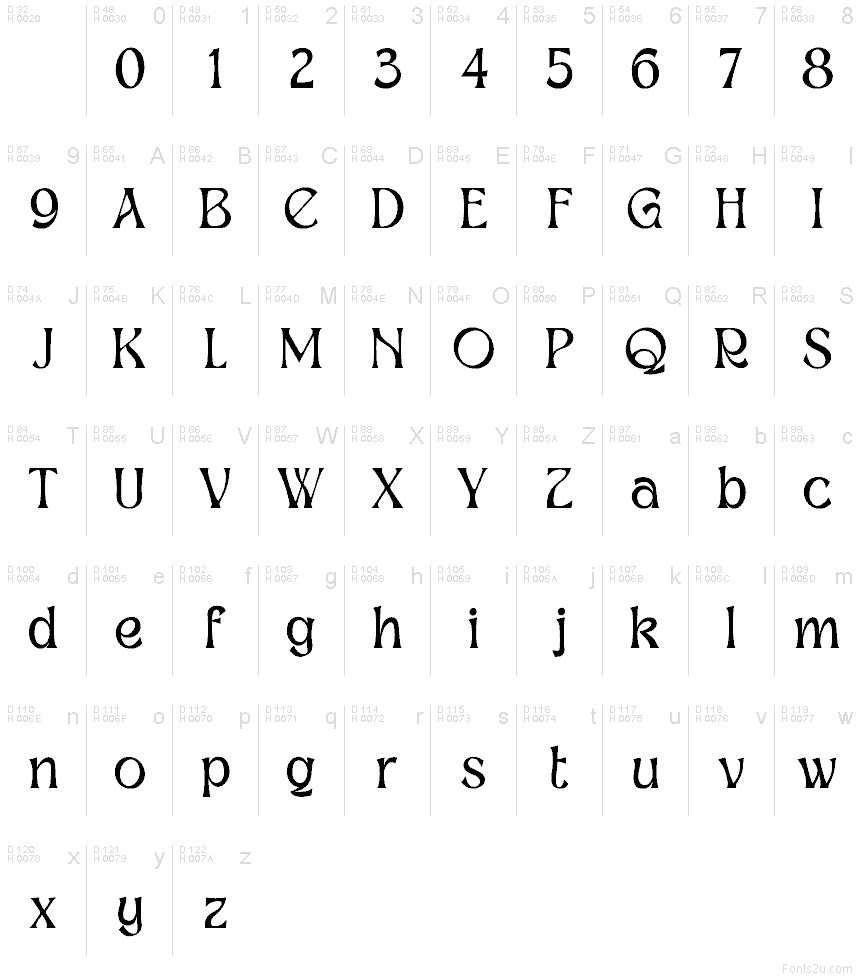
Reimbrandt DEMO
Reimbrandt font by Ikiiko Type is a vintage-inspired display font that radiates elegance and sophistication. Featuring a unique artistic flair and high-contrast details, this font captures attention with its intricate design and thoughtful craftsmanship. Its harmonious balance between tradition and modernity makes it an unforgettable choice for any project.
Enjoy utilizing this free display font to design mood boards, book covers, packaging labels, posters, logos, magazine covers, stationery products or even signages among other things. Reimbrandt gives users freedom to use the typeface in monograms especially when an elegant channel of communication is desired!